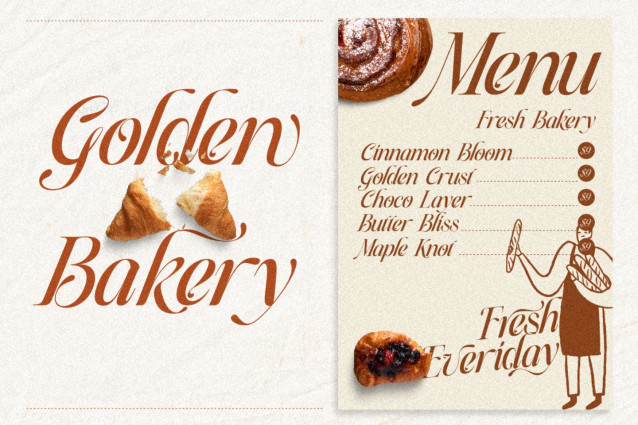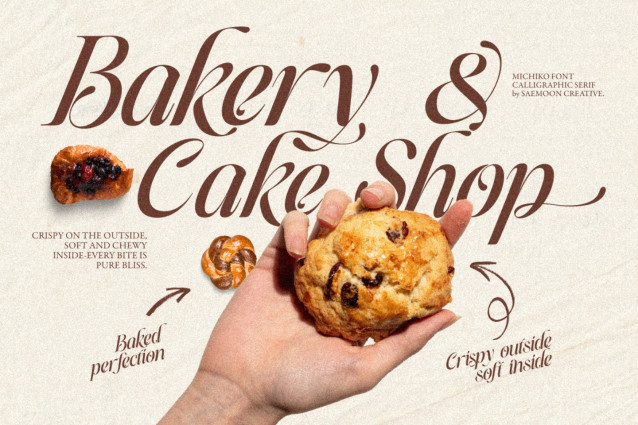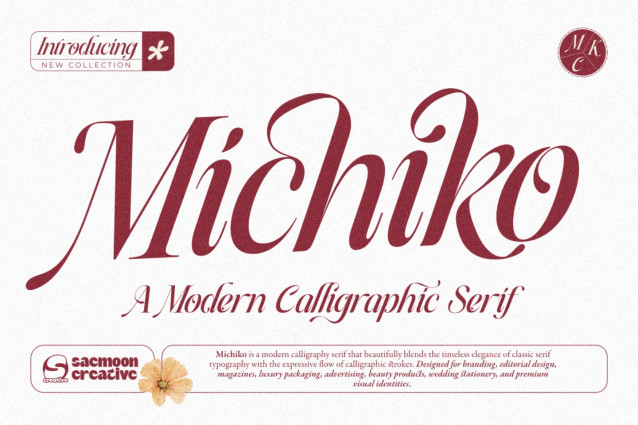
Michiko Font
Elevate your designs with Michiko, a modern calligraphy serif font that combines the timeless elegance of classic serif typography with the graceful beauty of flowing calligraphy. Designed with high-contrast strokes, delicate curves, and refined details, Michiko brings a luxurious and sophisticated personality to every project.
Perfect for designers, entrepreneurs, and creative professionals, Michiko is crafted to make branding stand out. Whether you’re creating a luxury logo, fashion campaign, wedding invitation, editorial layout, or premium product packaging, this font delivers an elegant and memorable impression.
With its expressive ligatures, stylish alternates, and multilingual support, Michiko offers the flexibility to create unique typography while maintaining excellent readability. Every character has been carefully designed to provide a harmonious balance between classic refinement and modern aesthetics.